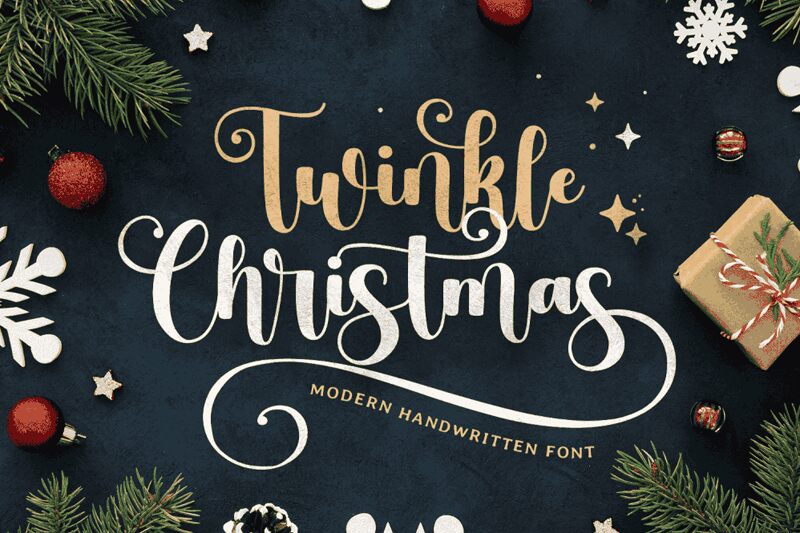
Twinkle Christmas font by Mozatype encompasses the magic of the holiday season. Dripping with sophistication and elegance, this free font seamlessly blends cursive style with modern handwritten elements. It creates an ornamental and graceful feeling inspired by the celebrated Christmas holiday. Its flowing, whimsical appearance is perfect for festive applications that aim to be warm and inviting.
Mediums of application for this beautiful typeface vary. You may want to use it in your personal holiday cards, gift tags, invitation cards, Christmas or any holiday posters, social media greetings, marketing and advertising, or journals. Incorporate it into your stationery, packaging, and branding for restaurants, bakeries, or coffee shops serving special Christmas menus.